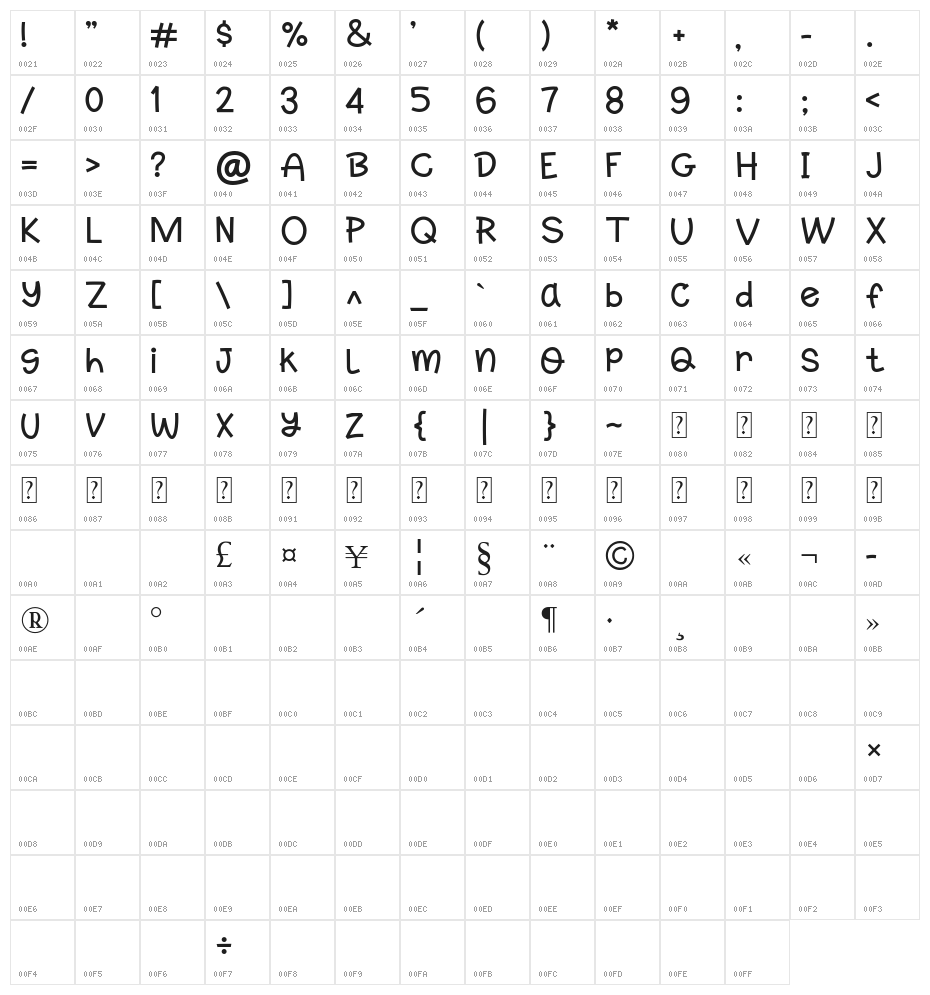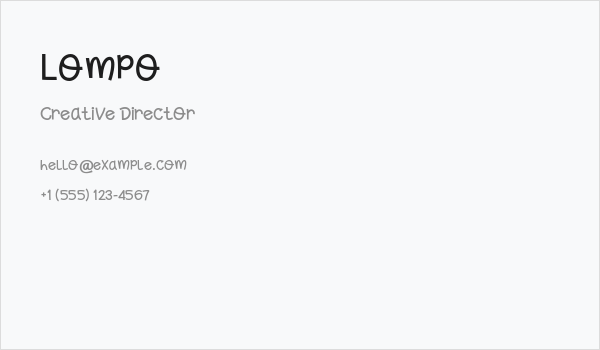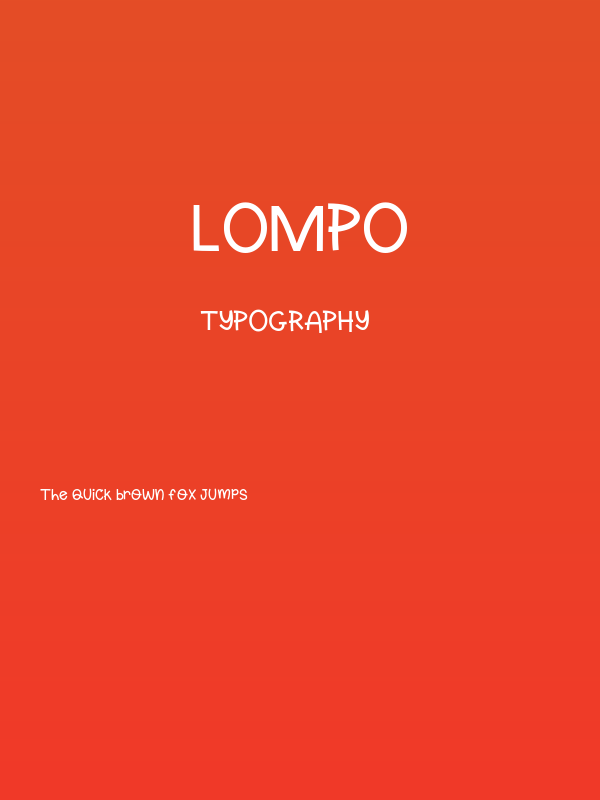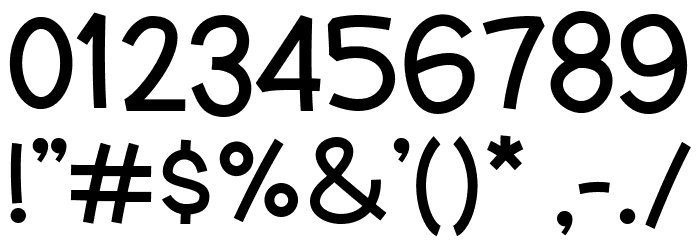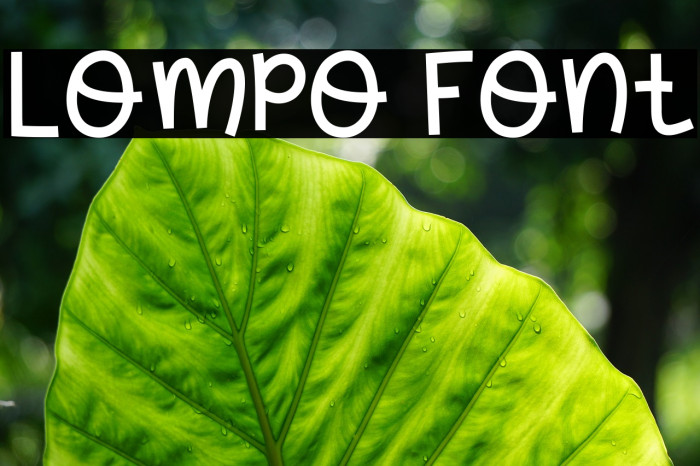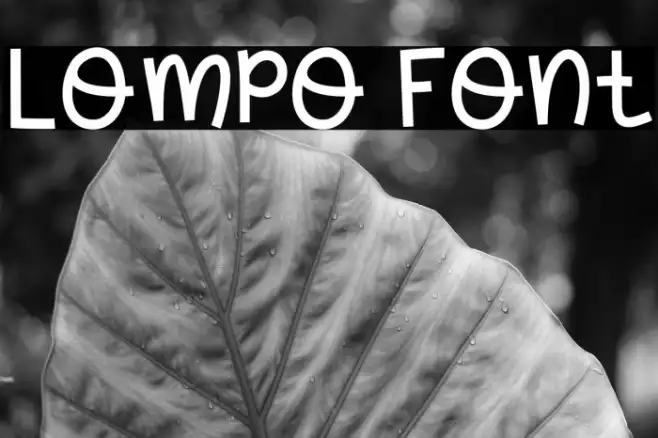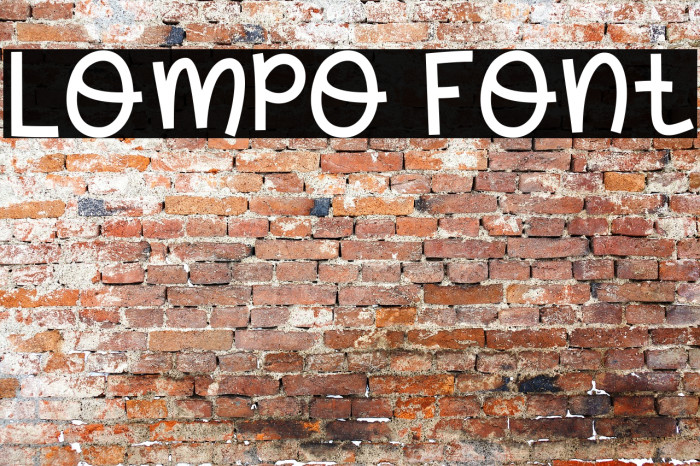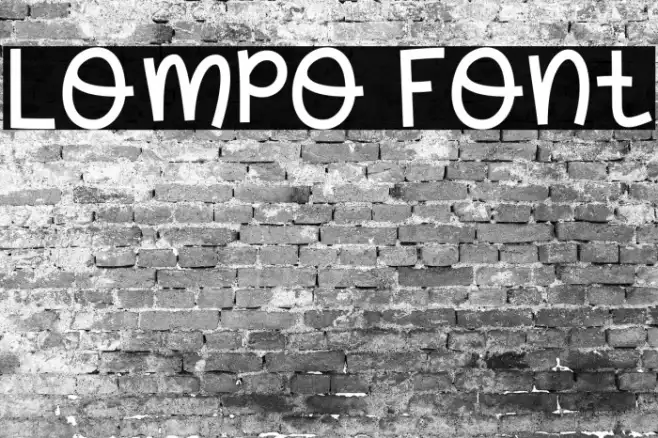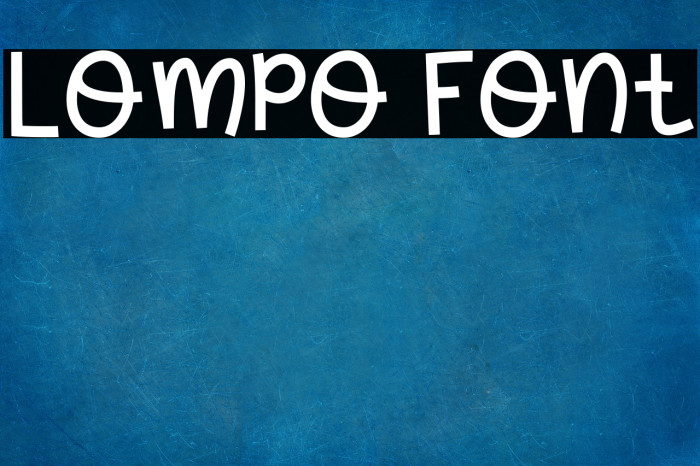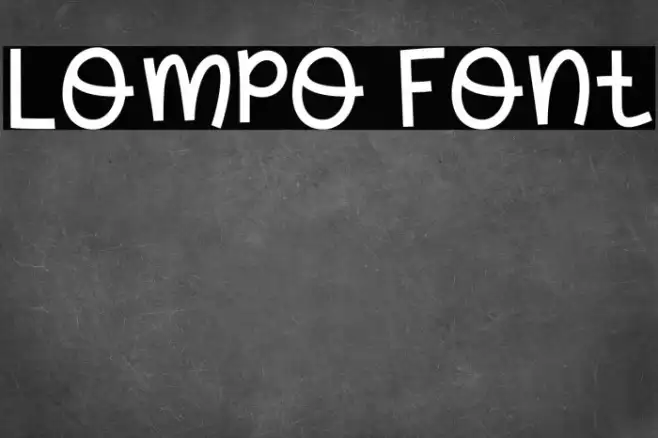
Lompo Font
Lompo Description
This playful and whimsical font features a hand-drawn aesthetic with irregular, rounded edges and a casual feel. The uppercase and lowercase letters maintain a consistent style, with a slight tilt and varying stroke widths that add to its charm. The numbers and special characters follow the same playful design, making it suitable for creative projects. Its unique character is emphasized by the uneven baseline and quirky letterforms, which give it a friendly and approachable appearance.